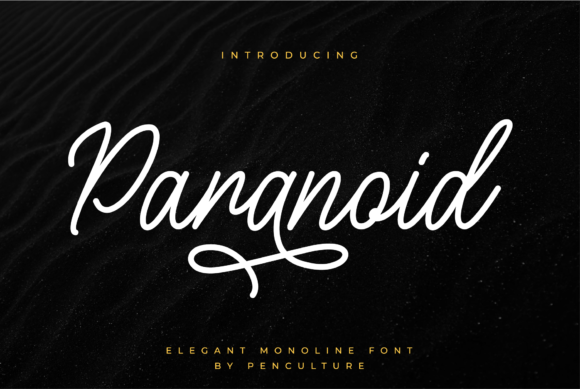
Introducing Paranoid - a captivating monoline script font that will cast a spell of elegance over your creative projects. Its fluidity and finesse will evoke a sense of intrigue and mystery, leaving your audience spellbound.
Crafted by the masters at Pen Culture, Paranoid is not just a font; it's an experience. With its diverse selection of alternates, this monoline beauty grants you the power to unleash your imagination and create designs that stand out from the mundane.
Picture your words dancing across the screen, each letter a piece of art, flowing effortlessly like a whisper of wind. Paranoid's delicate hairlines and graceful curves will add a touch of sophistication and allure to your projects, whether it's logos, branding, invitations, or social media posts.
Imagine the impact your designs will have when infused with Paranoid's enchanting charm. Your audience will be captivated by the way your words come to life, their eyes drawn to the intricate details that make Paranoid so unique.
But Paranoid's magic doesn't stop there. It's a versatile font that can seamlessly adapt to a variety of design aesthetics, from the classic and timeless to the modern and edgy. Whether you're creating wedding invitations, fashion posters, or eye-catching social media graphics, Paranoid will elevate your designs to new heights.